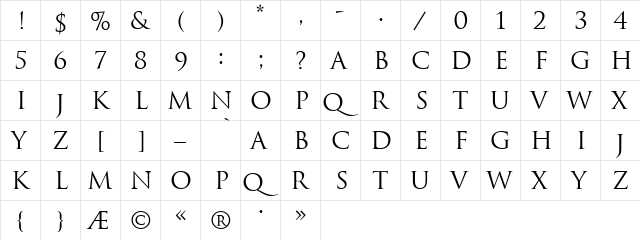
Romul Regular
Design Context for Romul Typeface
Romul offers clean, dependable letterforms without strong stylistic allegiance, making it a practical choice for designers who need flexibility.